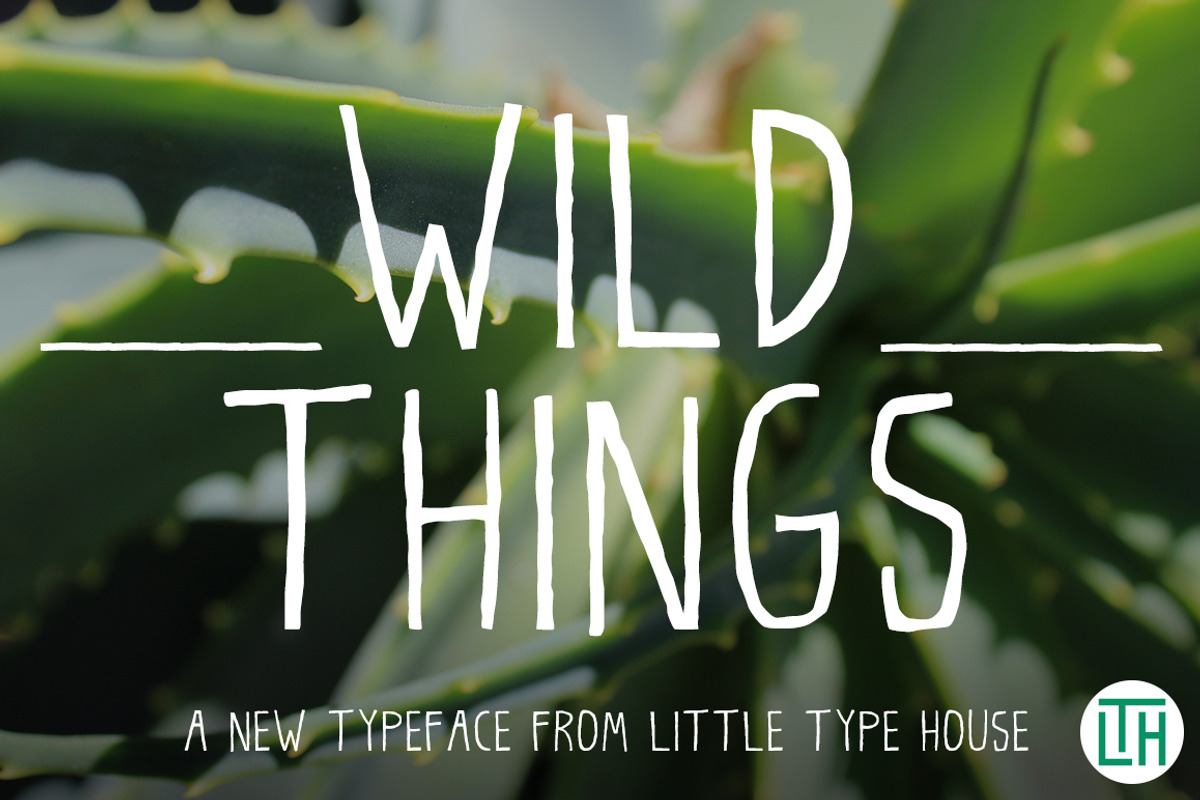
Wild Things Font Free Download is a bold and playful typeface designed to bring an adventurous and carefree spirit to your designs. With its unique, irregular letterforms and dynamic structure, this font is perfect for creative projects, outdoor branding, event posters, t-shirts, and more.
Its fun and energetic style makes it ideal for designs that need a touch of wildness, whether you’re creating for a nature-inspired brand, an adventurous event, or a youthful campaign. Wild Things Font Free Download adds personality and character to your typography while keeping things bold and readable.